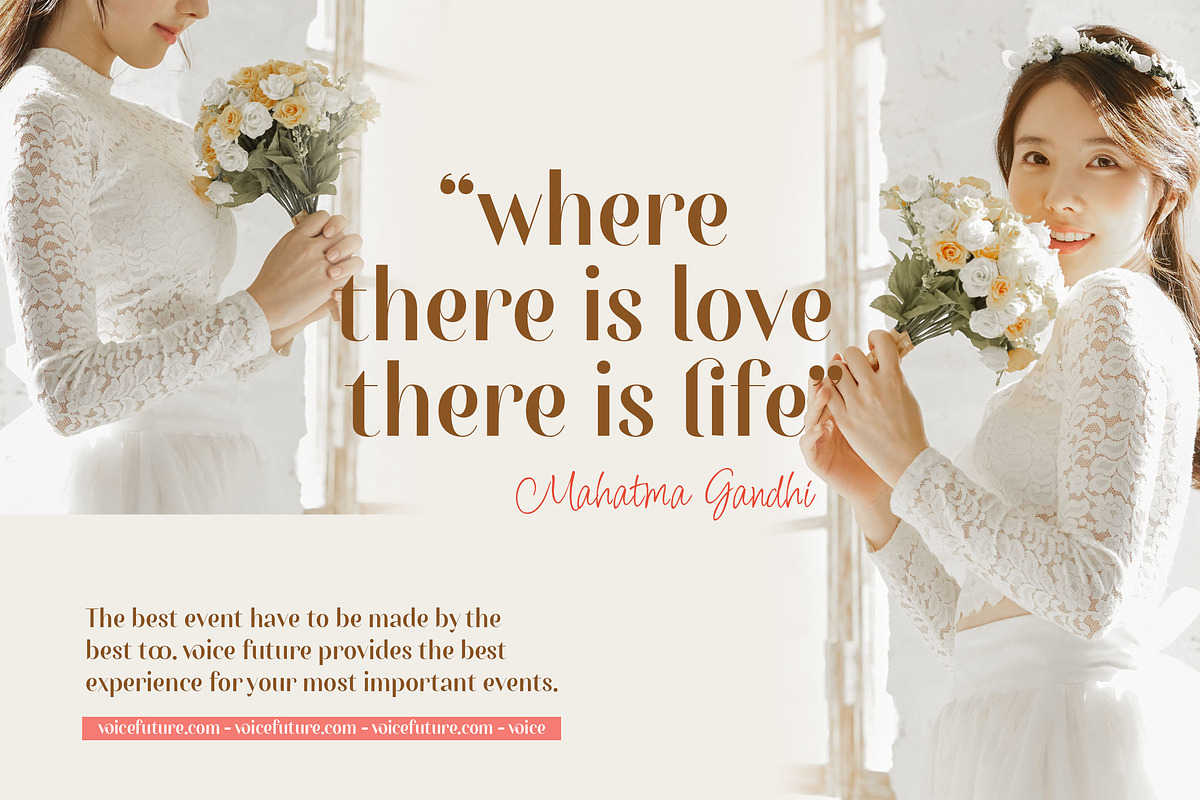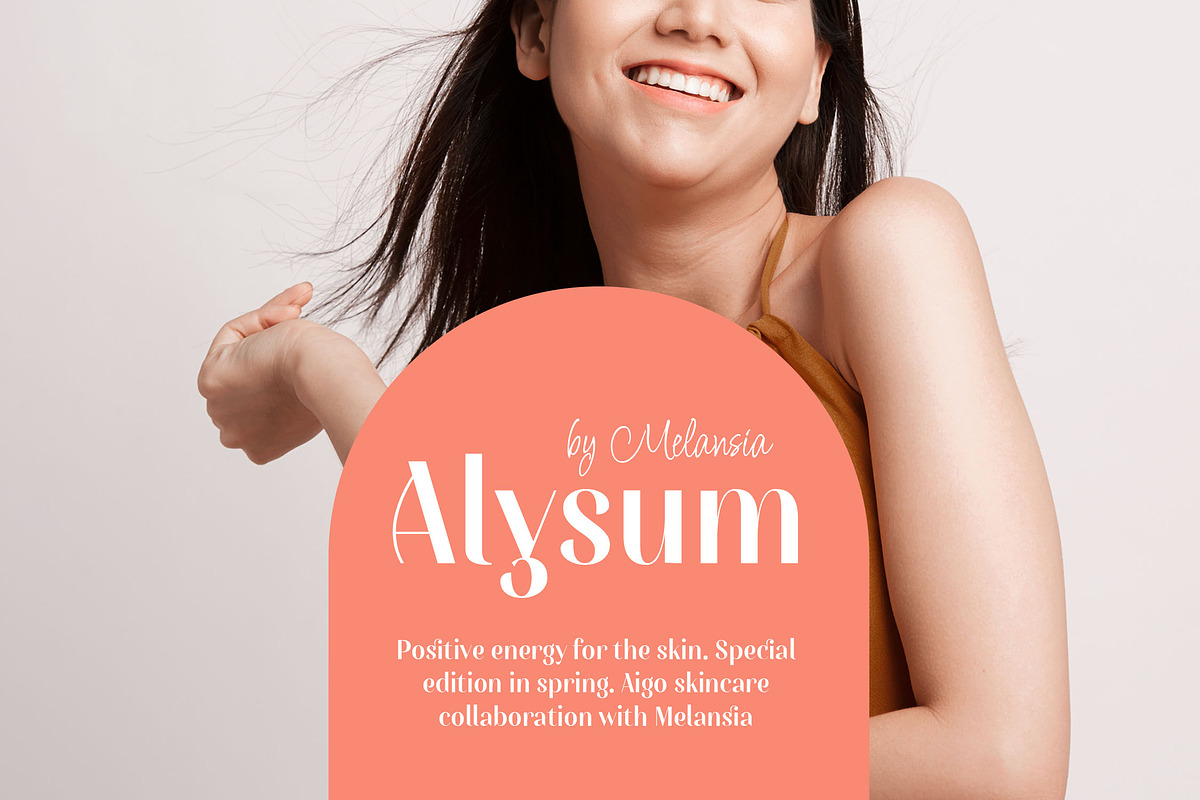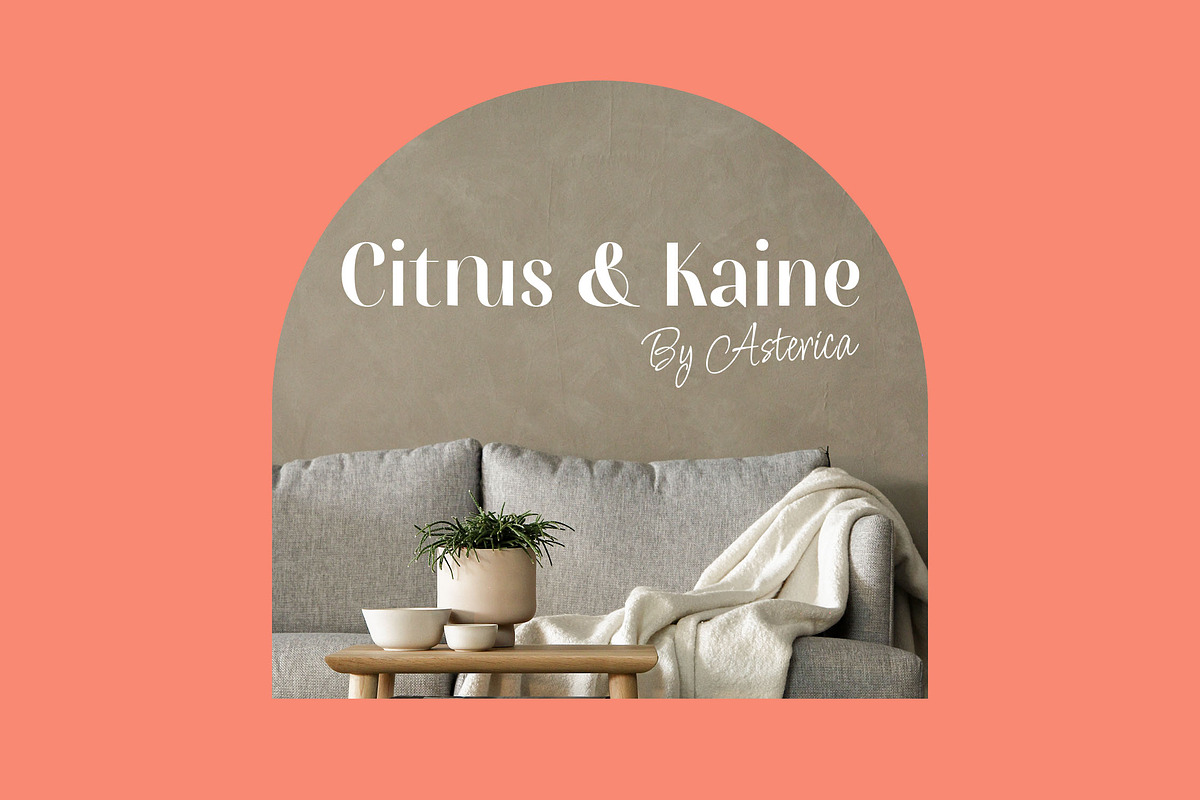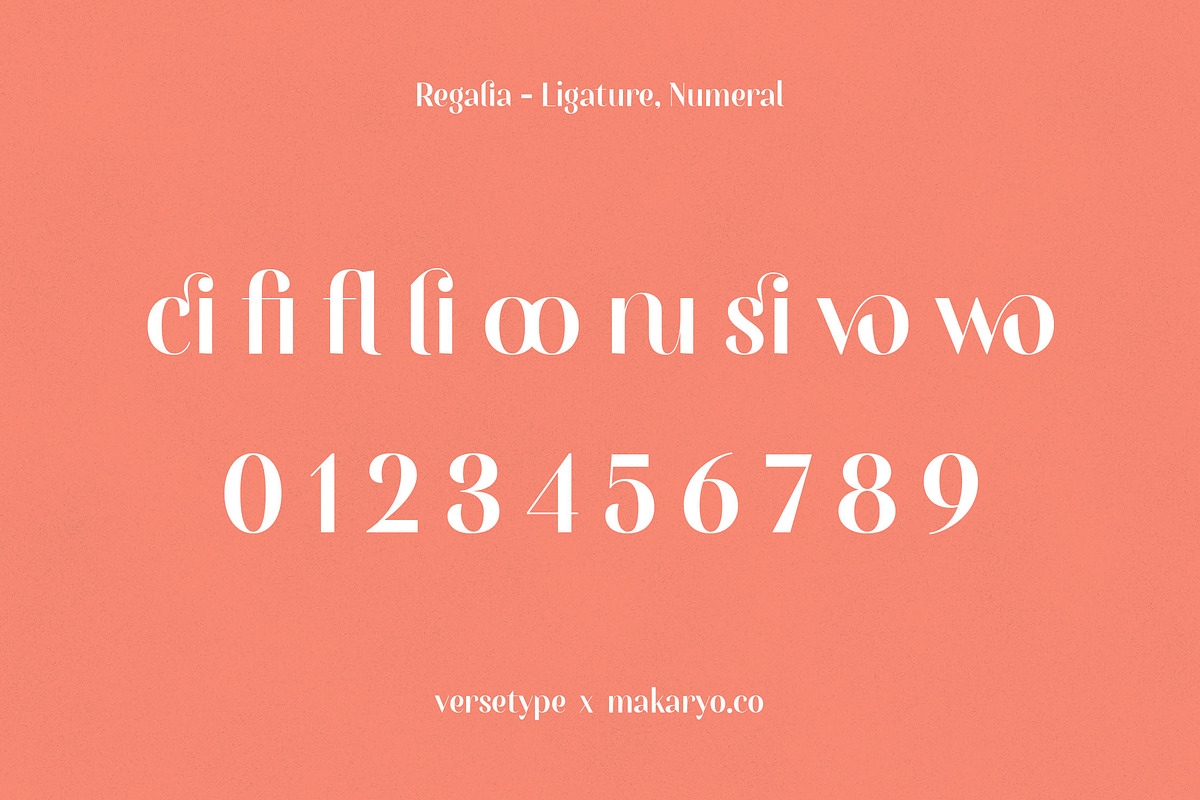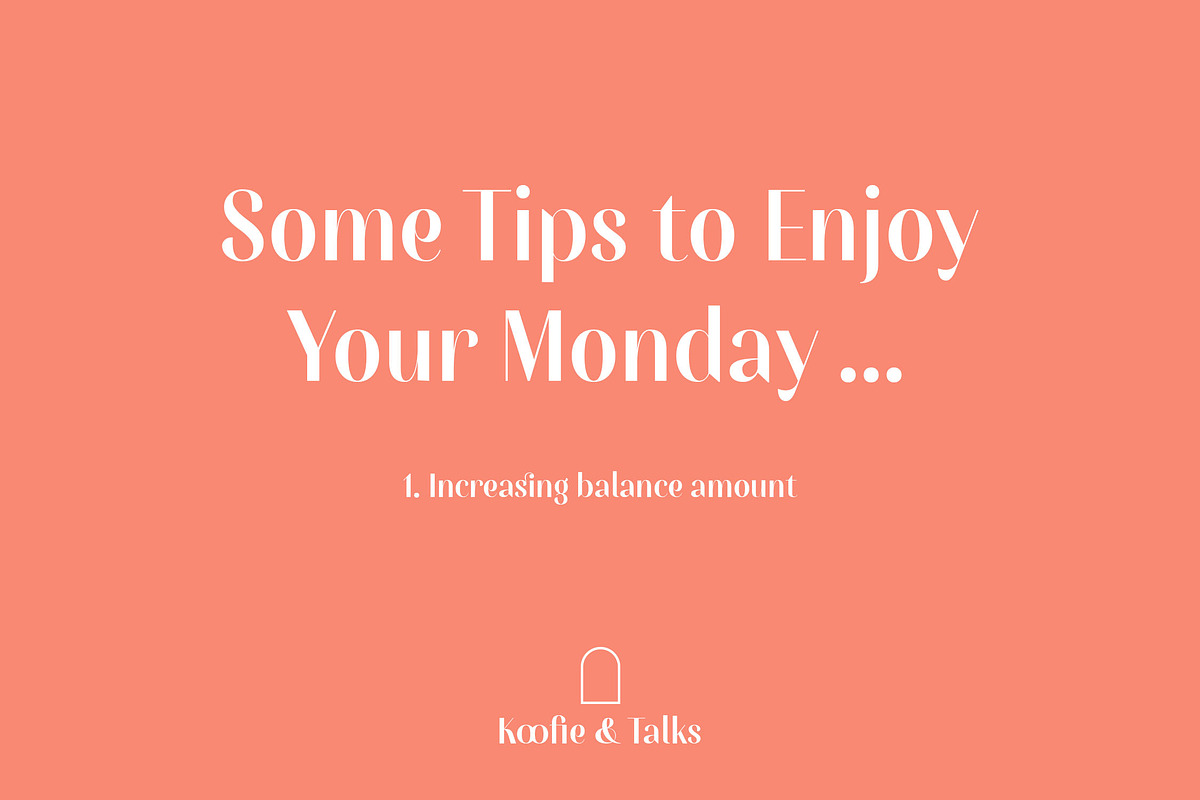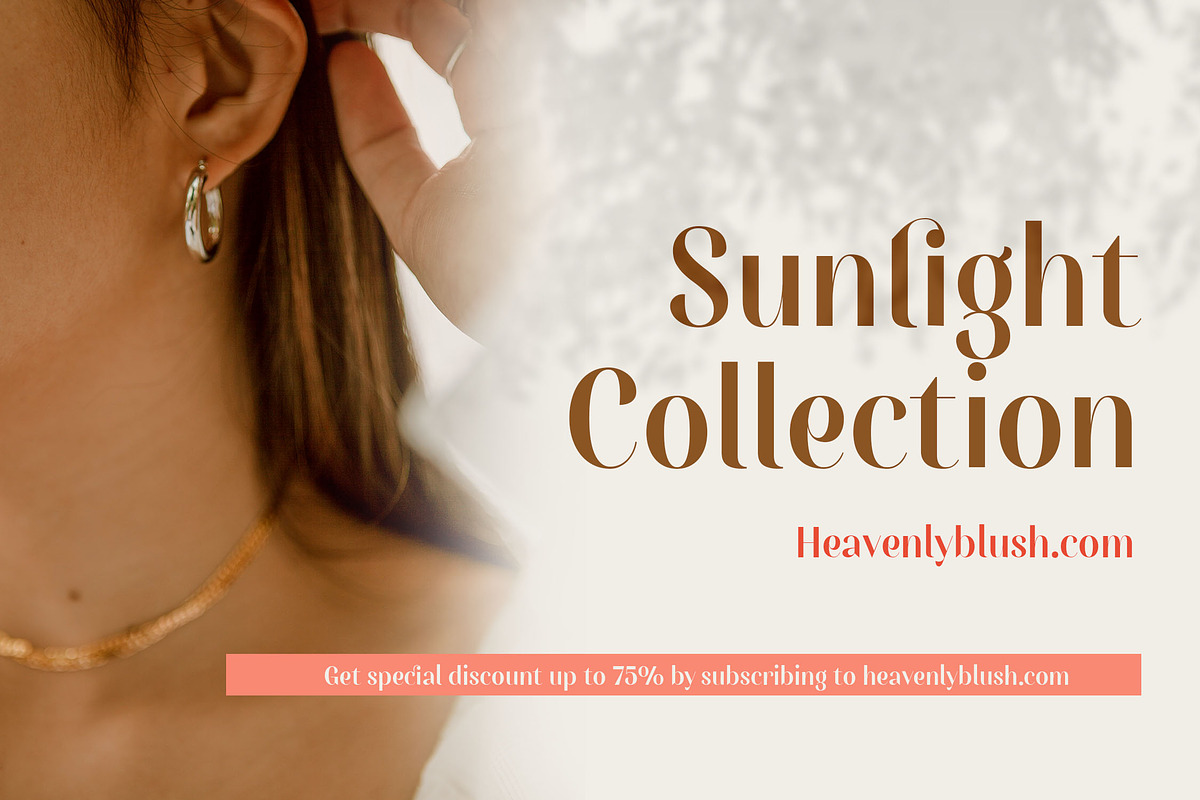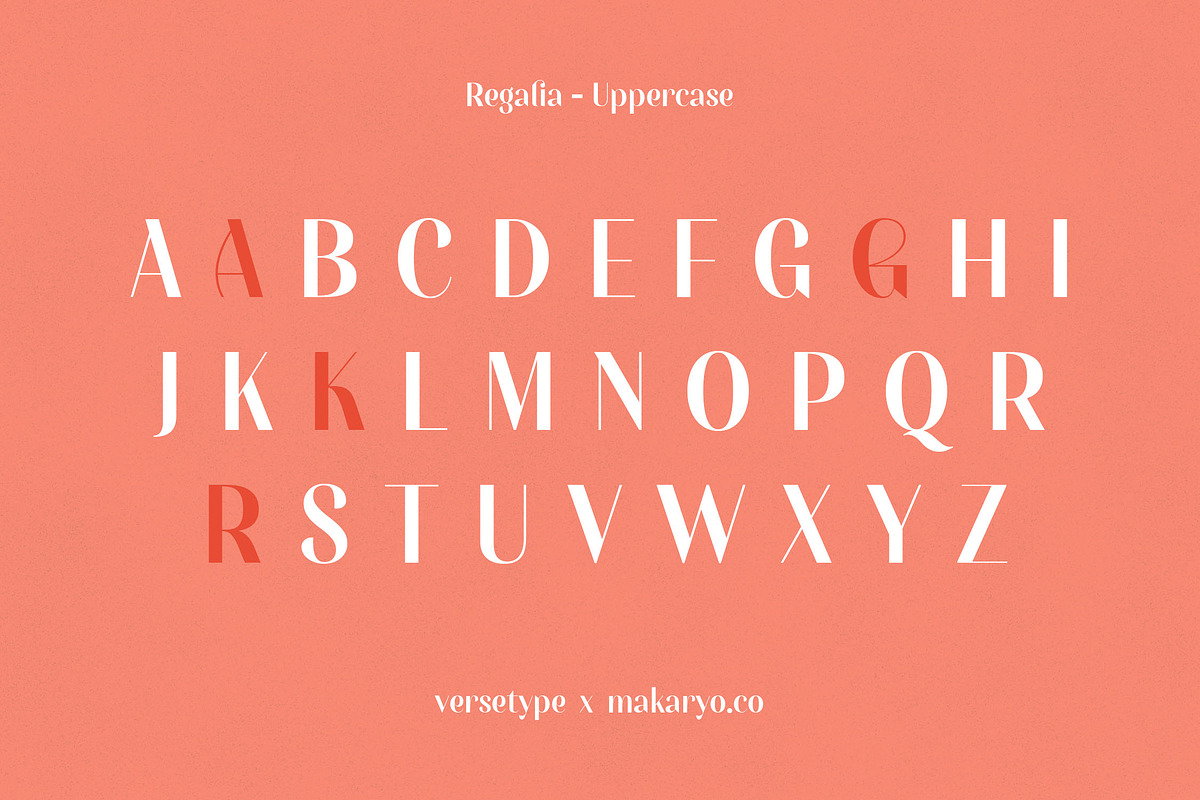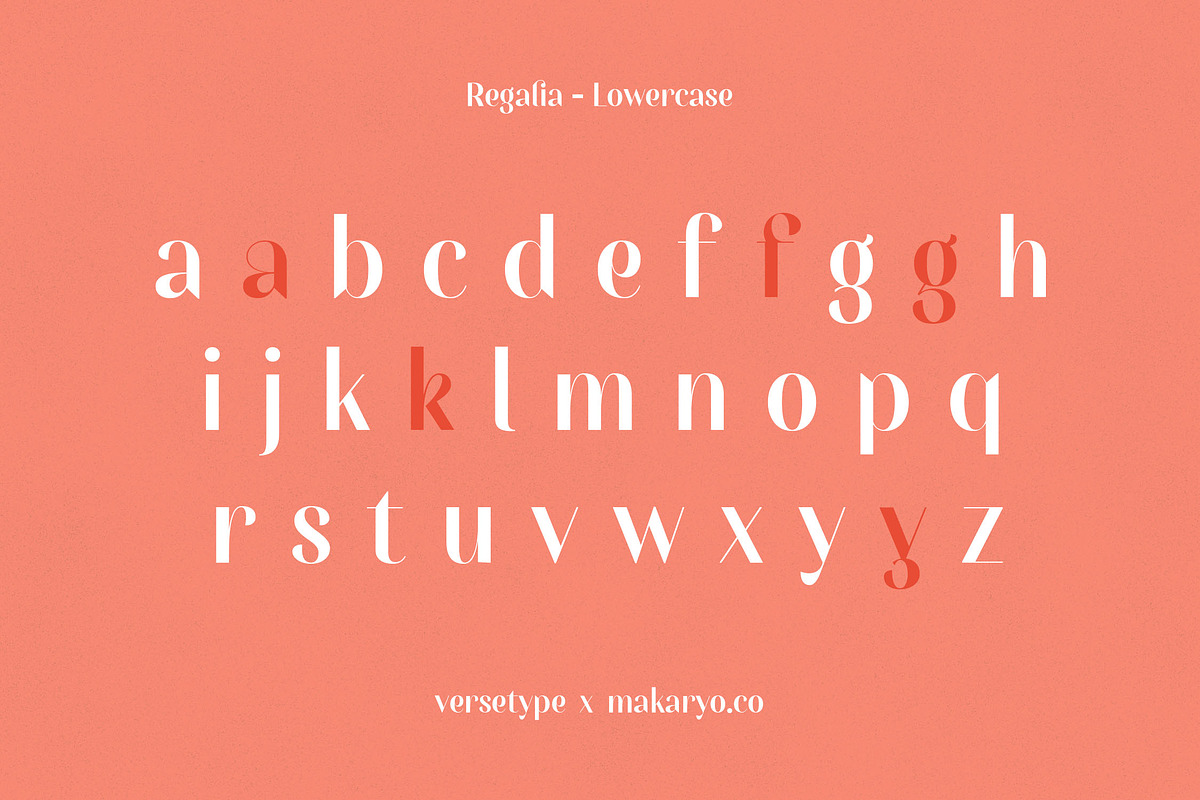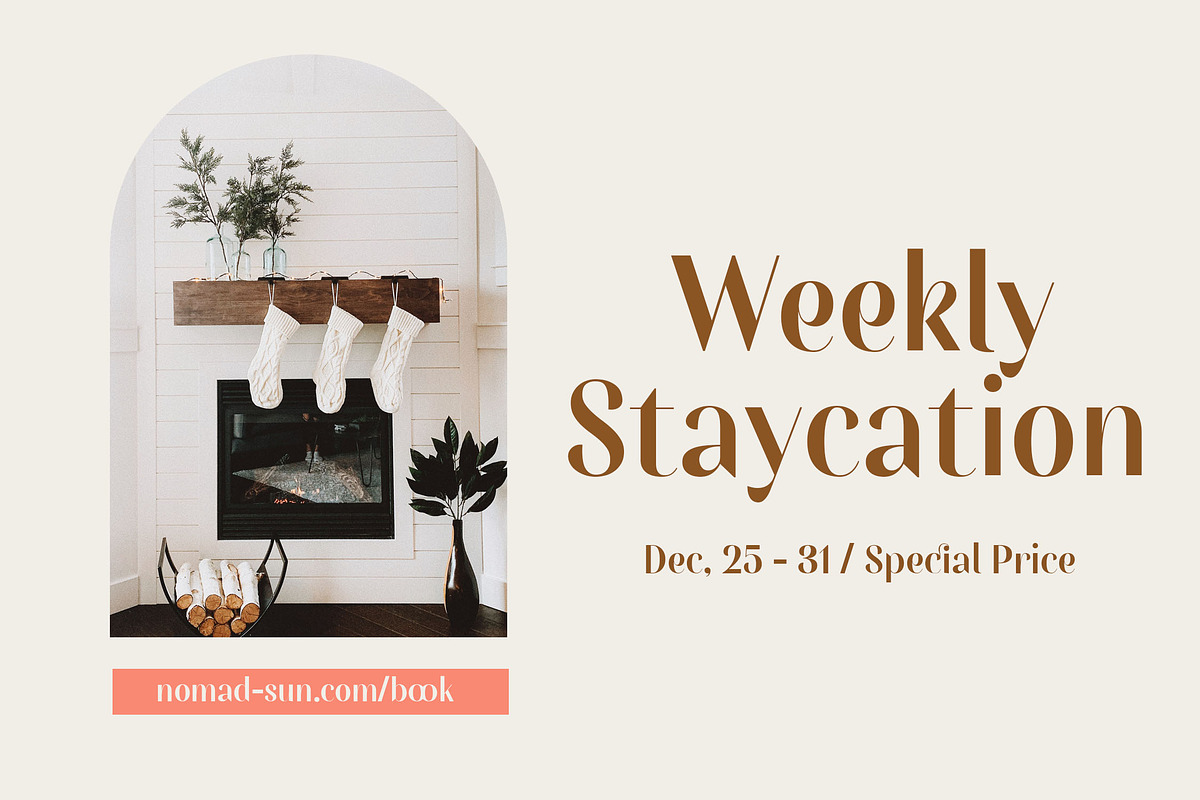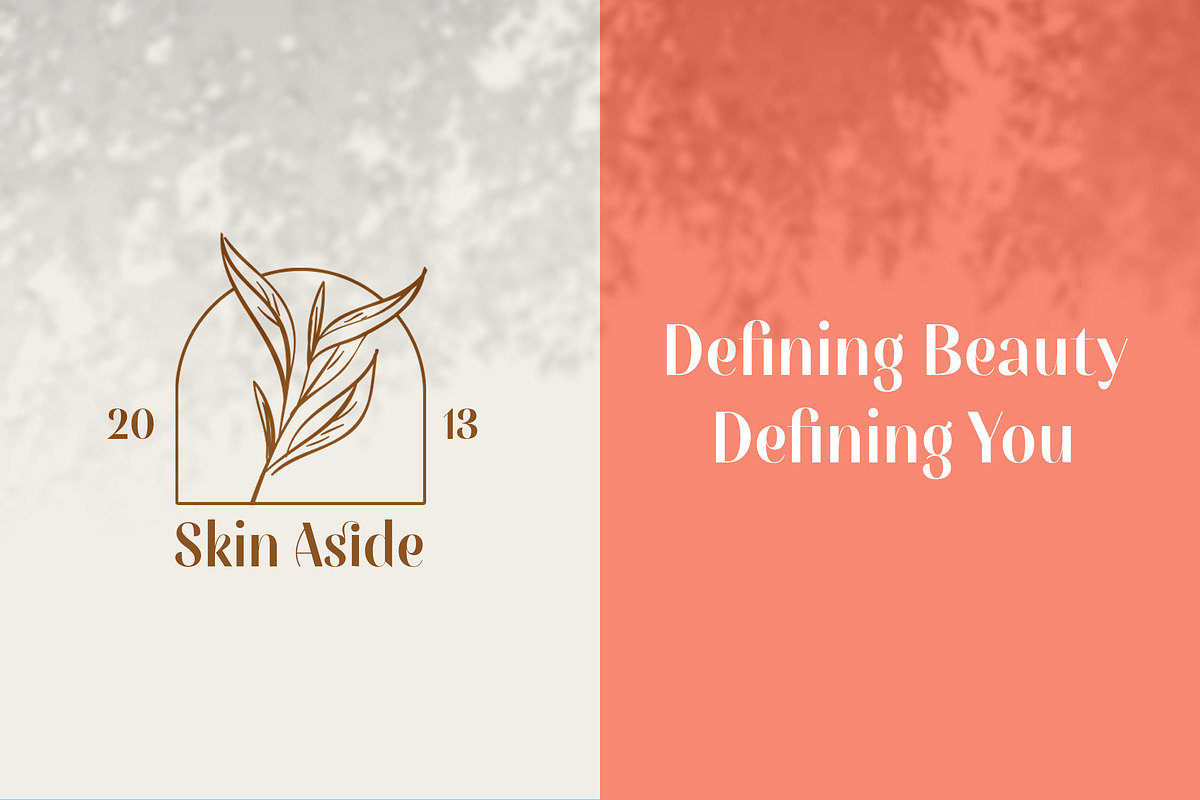
Regalia Sans
Regalia Sans is a sans serif font with a strong signature on high contrast.
Regalia has a variety of ligatures that can support your design to be unique. It is very suitable for the needs of branding logos, cosmetic products, skin care, beauty products, jewelry, content writing design needs, magazine covers to other social media needs.
Regalia is very suitable to be combined with a font with a minimalist handwriting type.